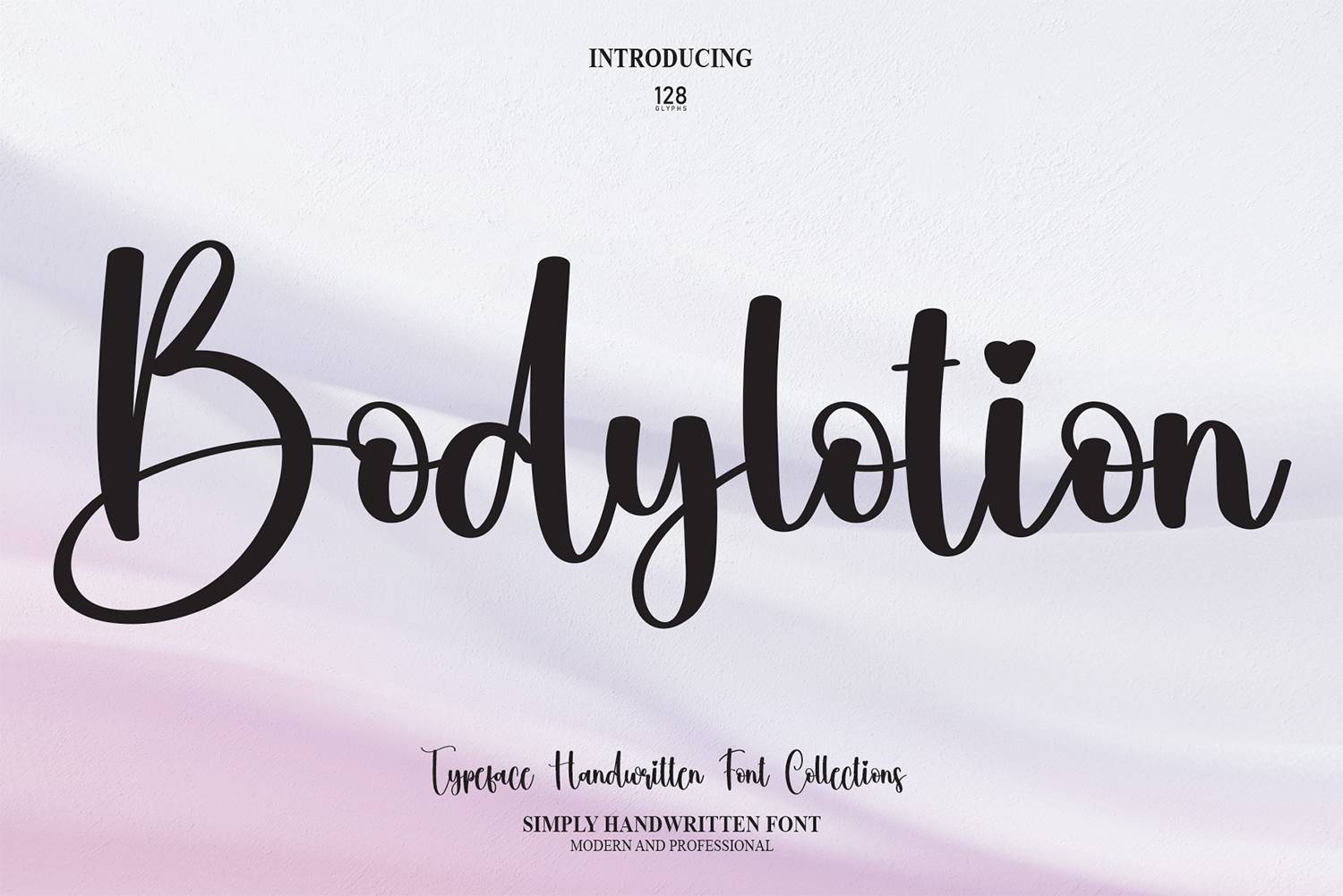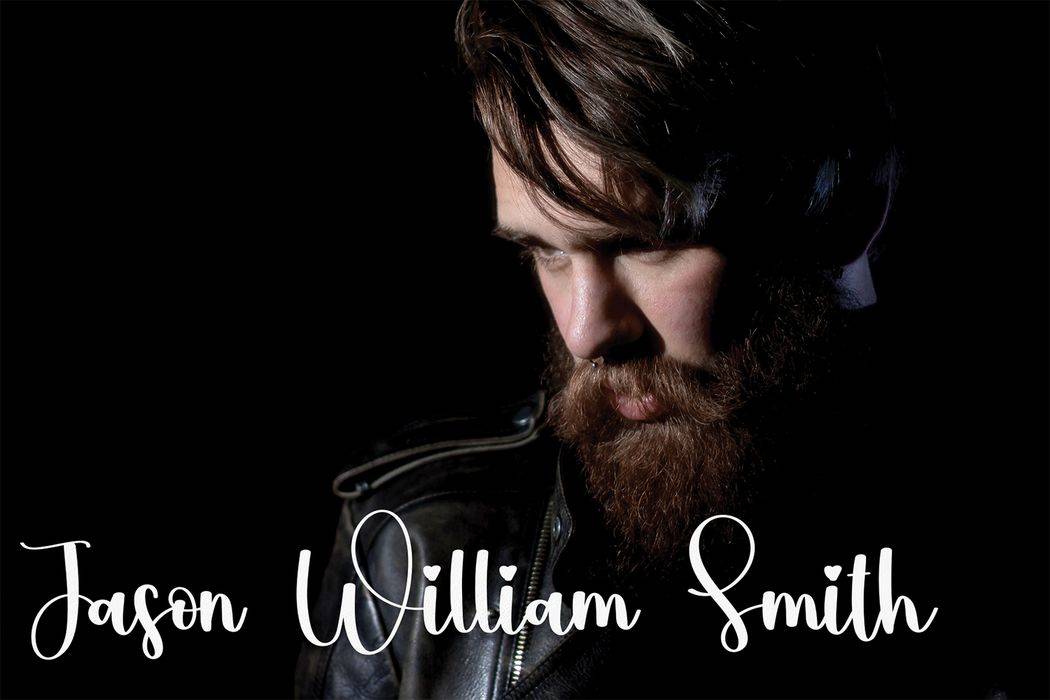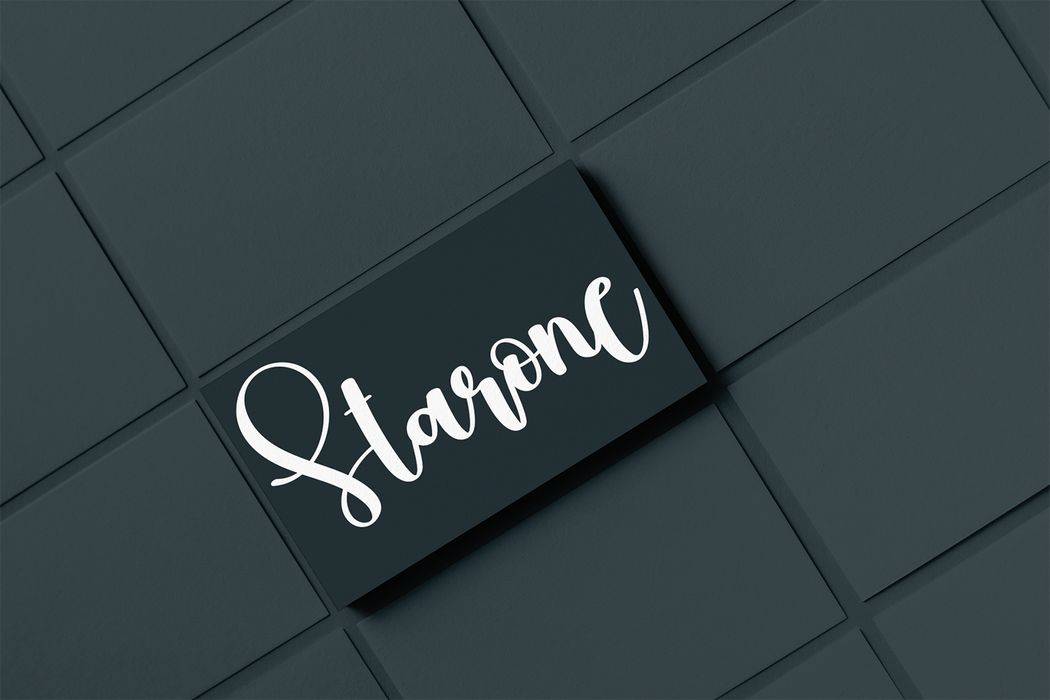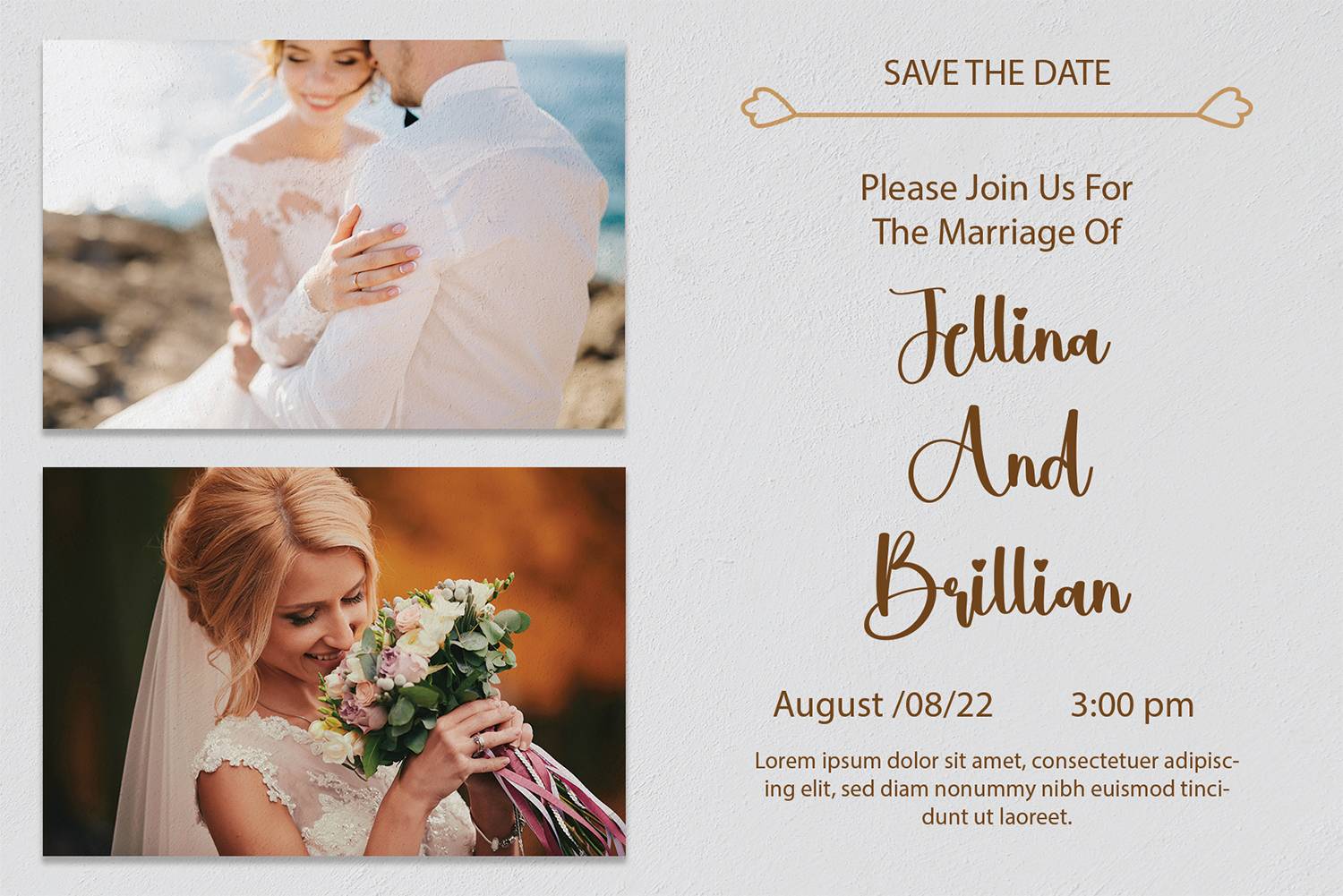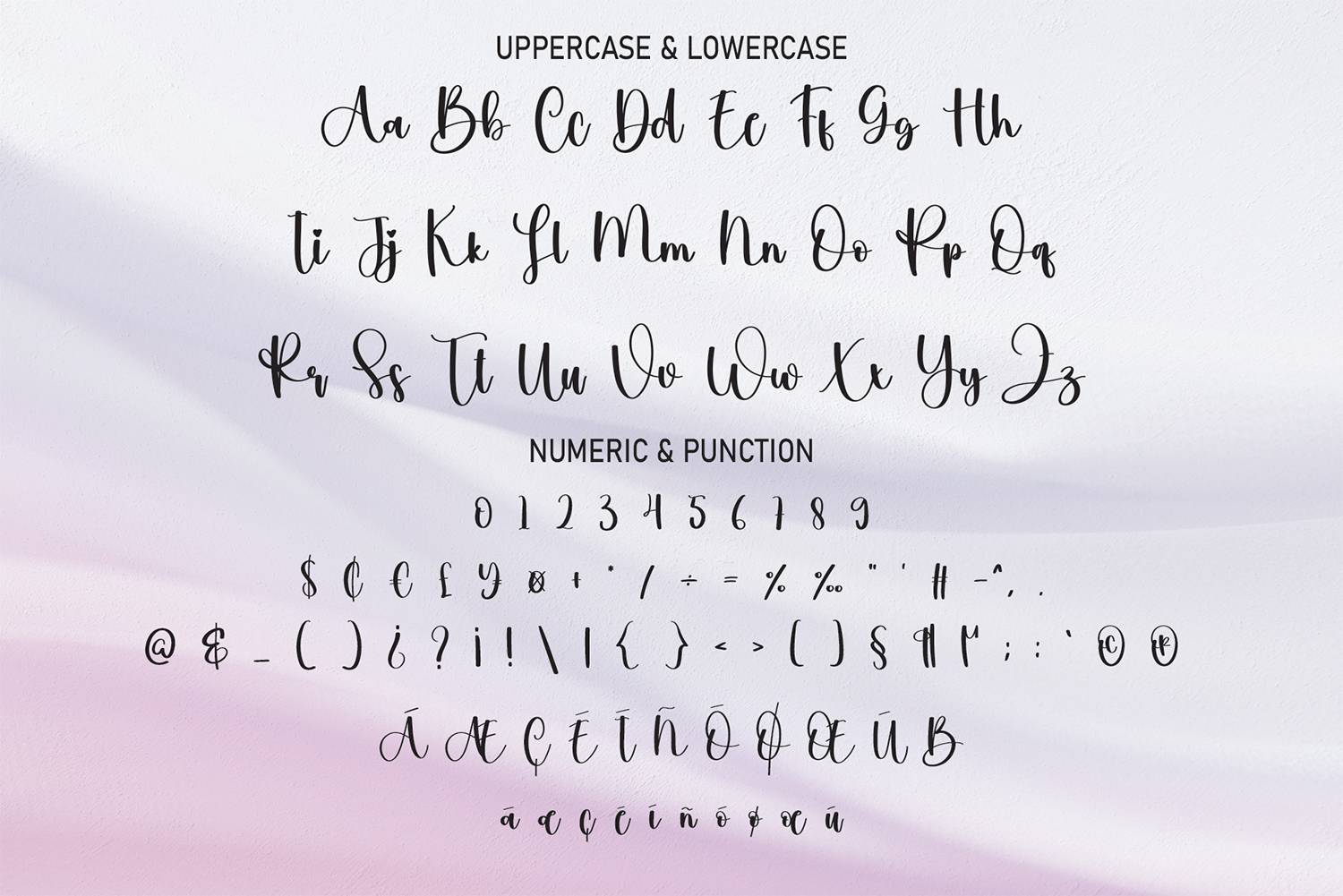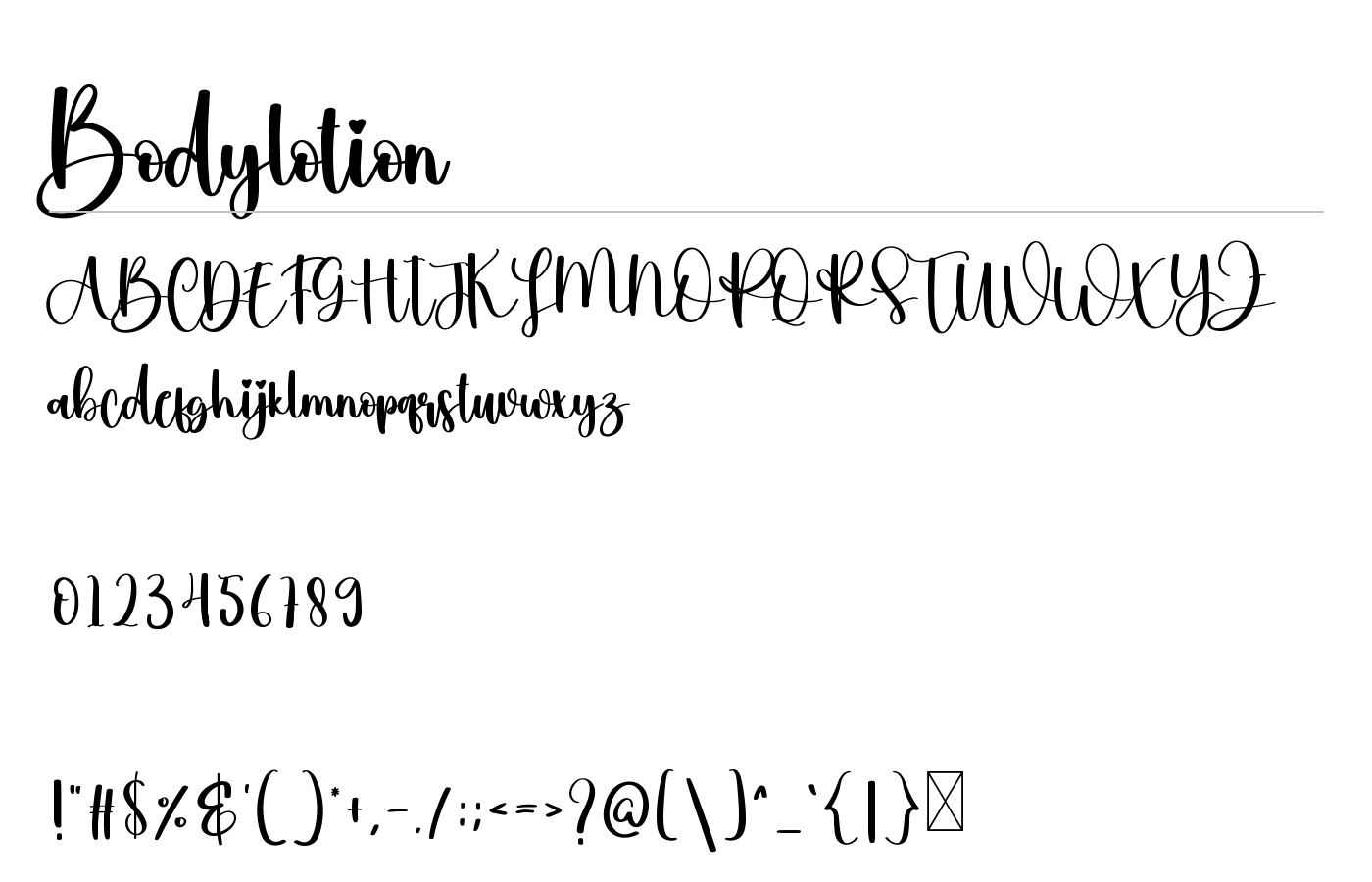
Bodylotion is a playful and elegant script font featuring smooth, flowing strokes with whimsical loops and heart accents that give it a friendly, feminine feel. Its delicate, hand-drawn style works beautifully for creative branding, invitations, and lifestyle projects looking to convey warmth and charm. This font shines in decorative headlines and logos where a personal, artistic touch is desired.
Bodylotion Font